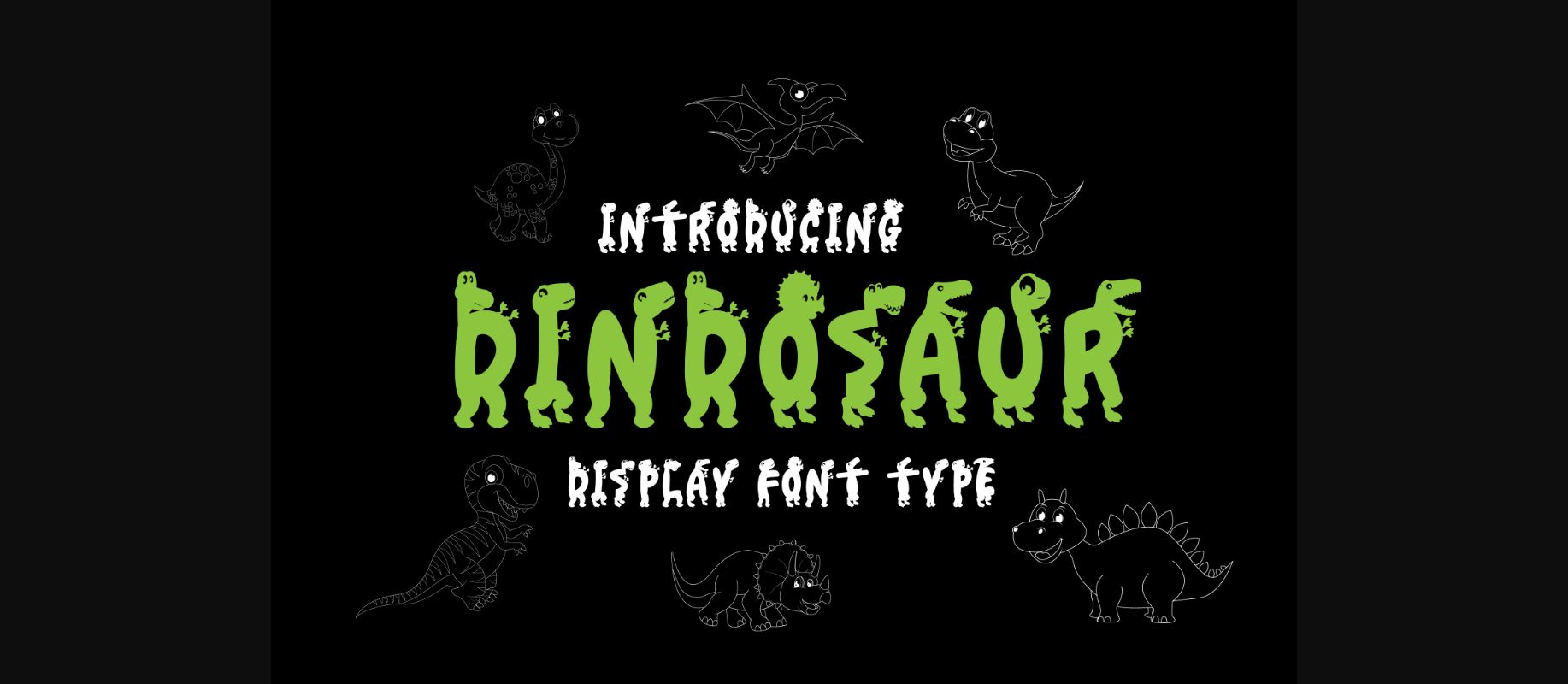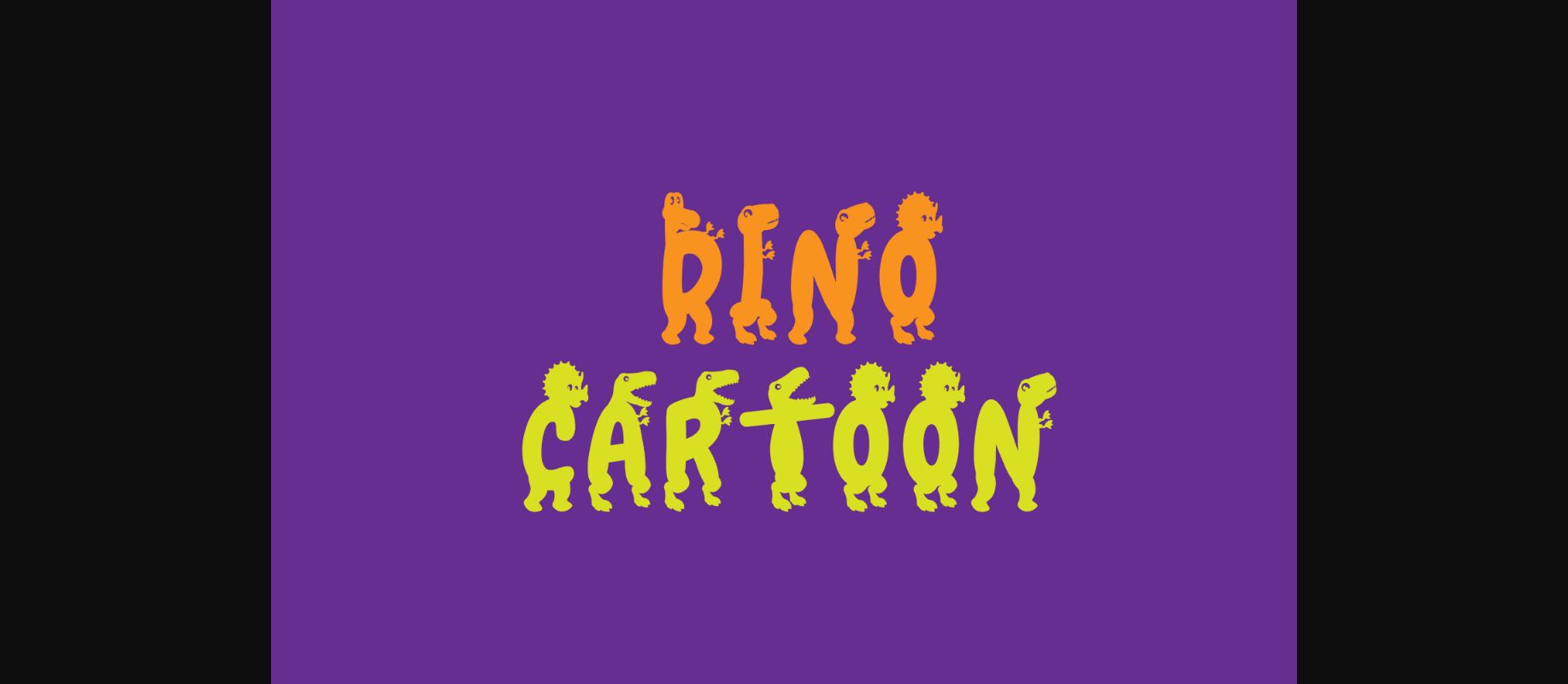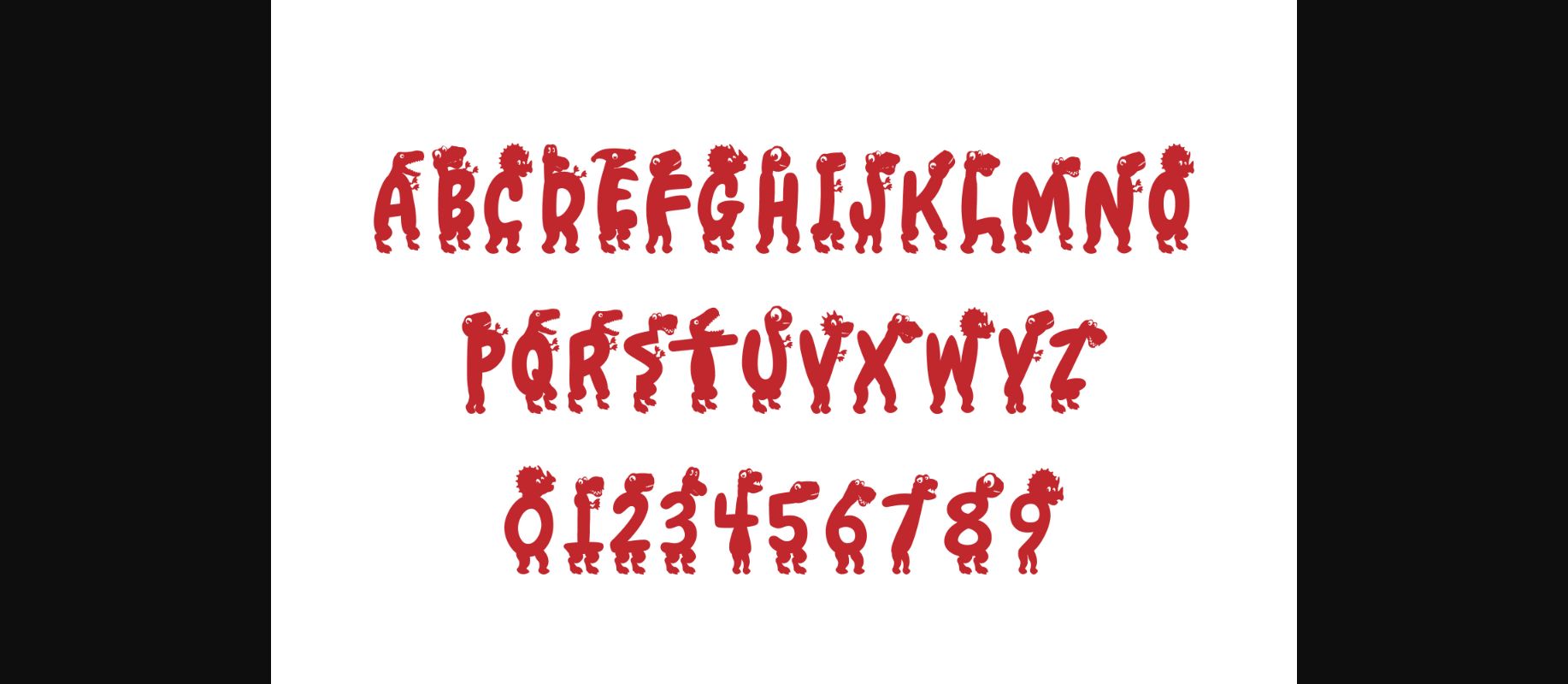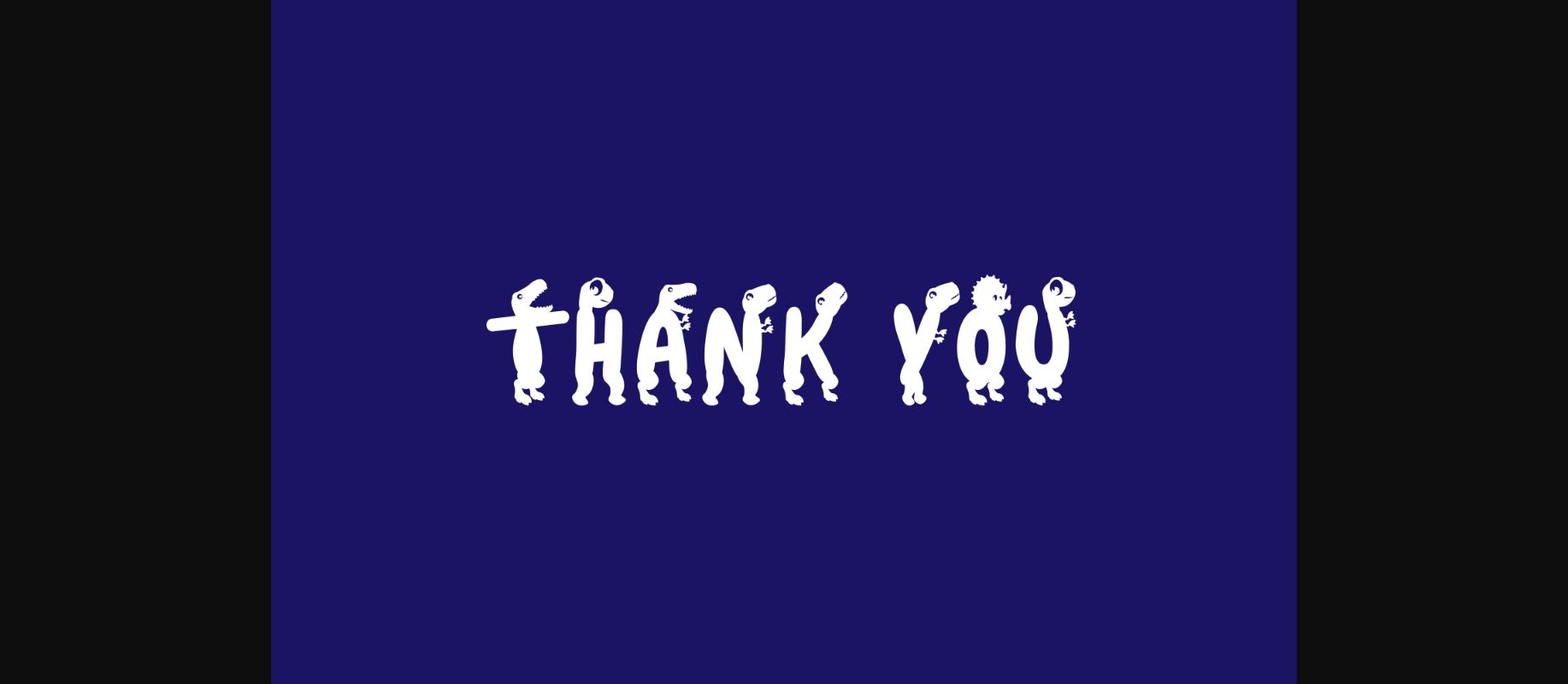
Dindosaur Font
About Dindosaur Font
Dindosaur is a cute and uniquely designed decorative font, featuring little dinosaurs on each character. Whether you are using it for cartoon-related designs, children games, quotes, titles, brand names, book covers, posters, or just any creation that requires a touch of joy, this font is a great choice.